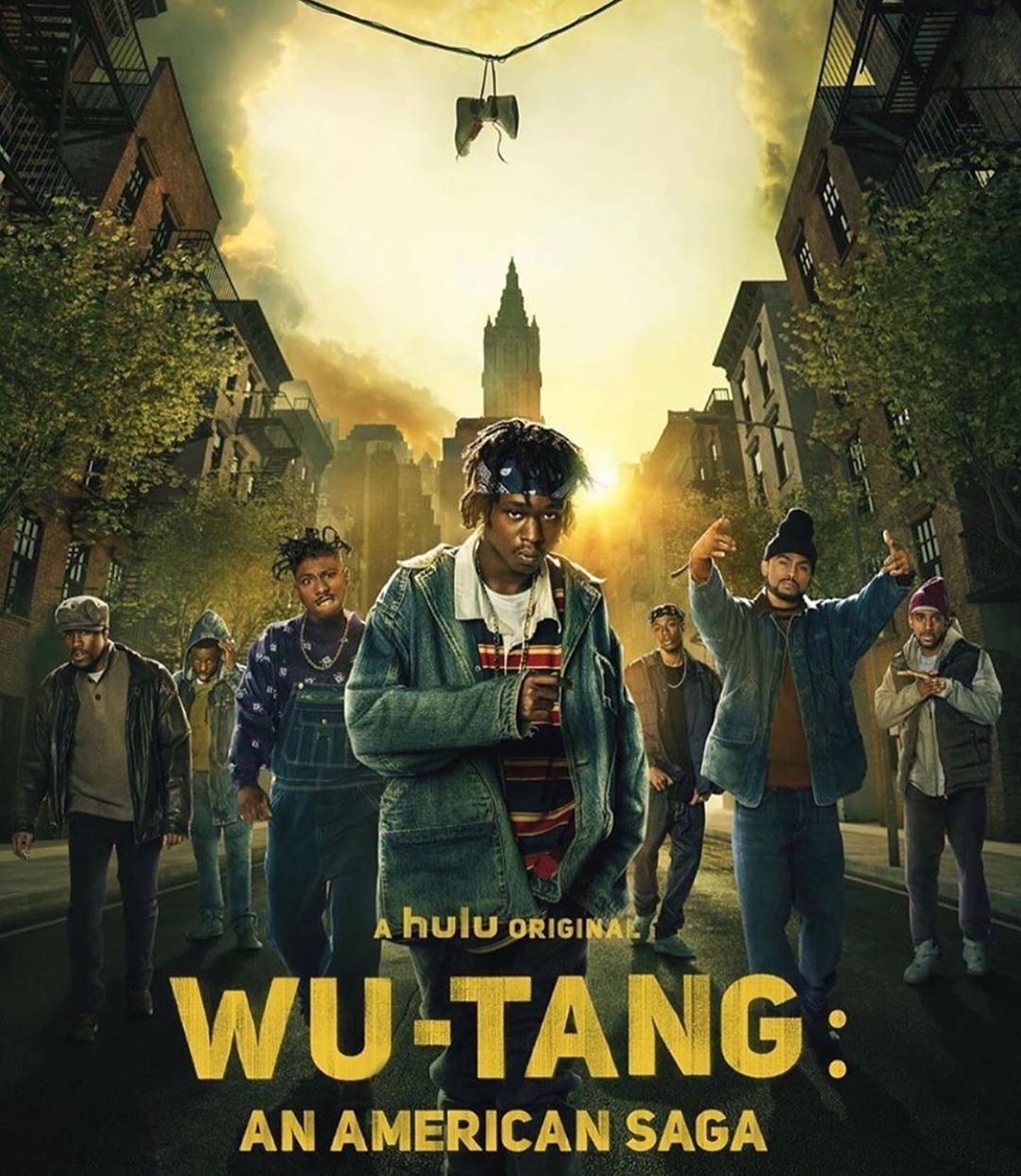
Wu-Tang An American Saga Font
DramaWu-Tang: An American Saga is a television miniseries that tells the story of the Wu-Tang Clan, one of the most influential hip-hop groups. The series aired on Hulu in 2019.
The poster for the series features a bold, all-caps font from Fontfabric's Uni Sans Heavy collection. A redesigned version of Uni Sans, Uni Neue, was also released by Fontfabric in 2017, featuring softer corners and less visible ink traps. You can view and download both fonts here and here respectively.